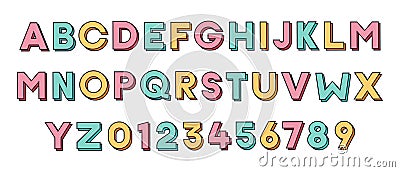
Custom Font Design. Typeface Effect Style. Colorfull Filled Outline Graphic Style Cartoon Vector
Custom font design. Typeface effect style. Colorfull filled outline graphic style.